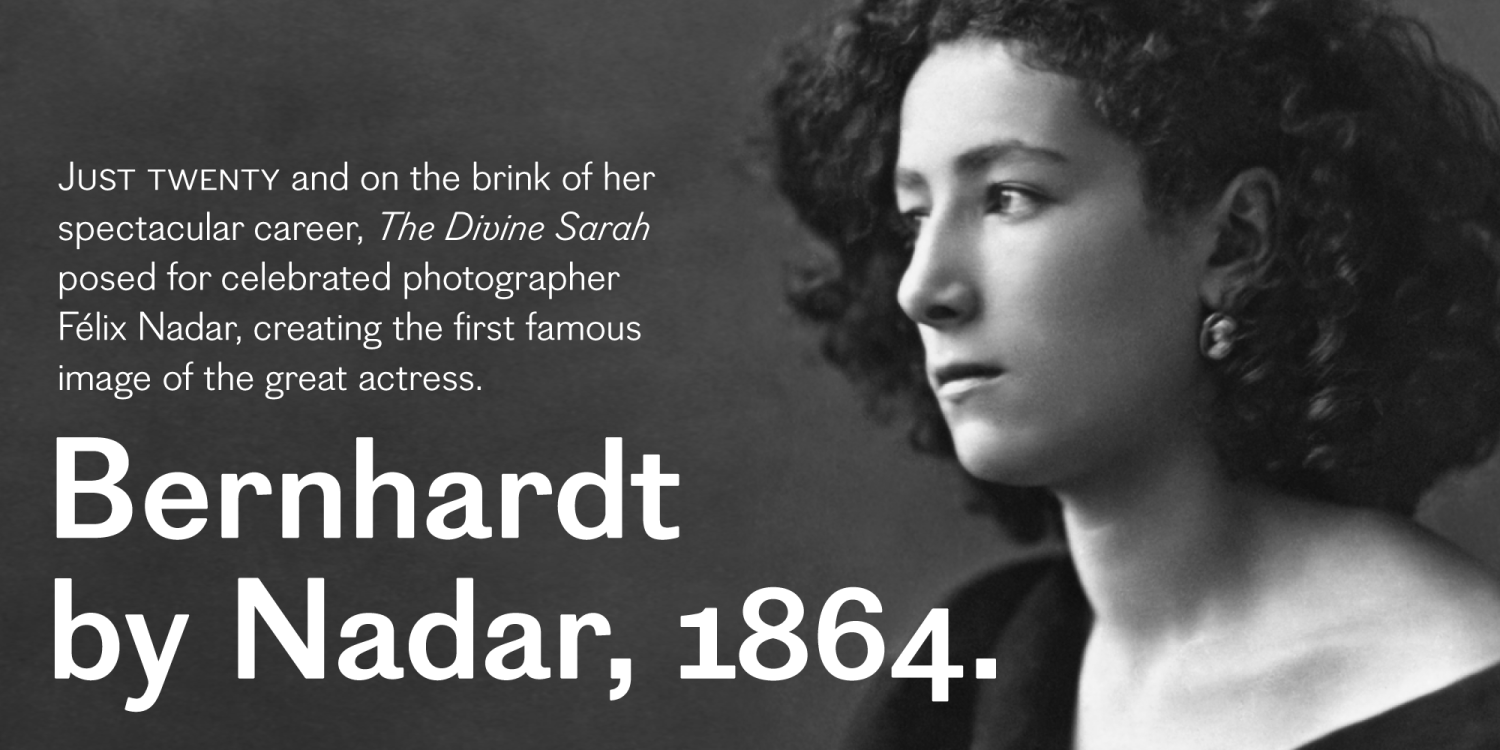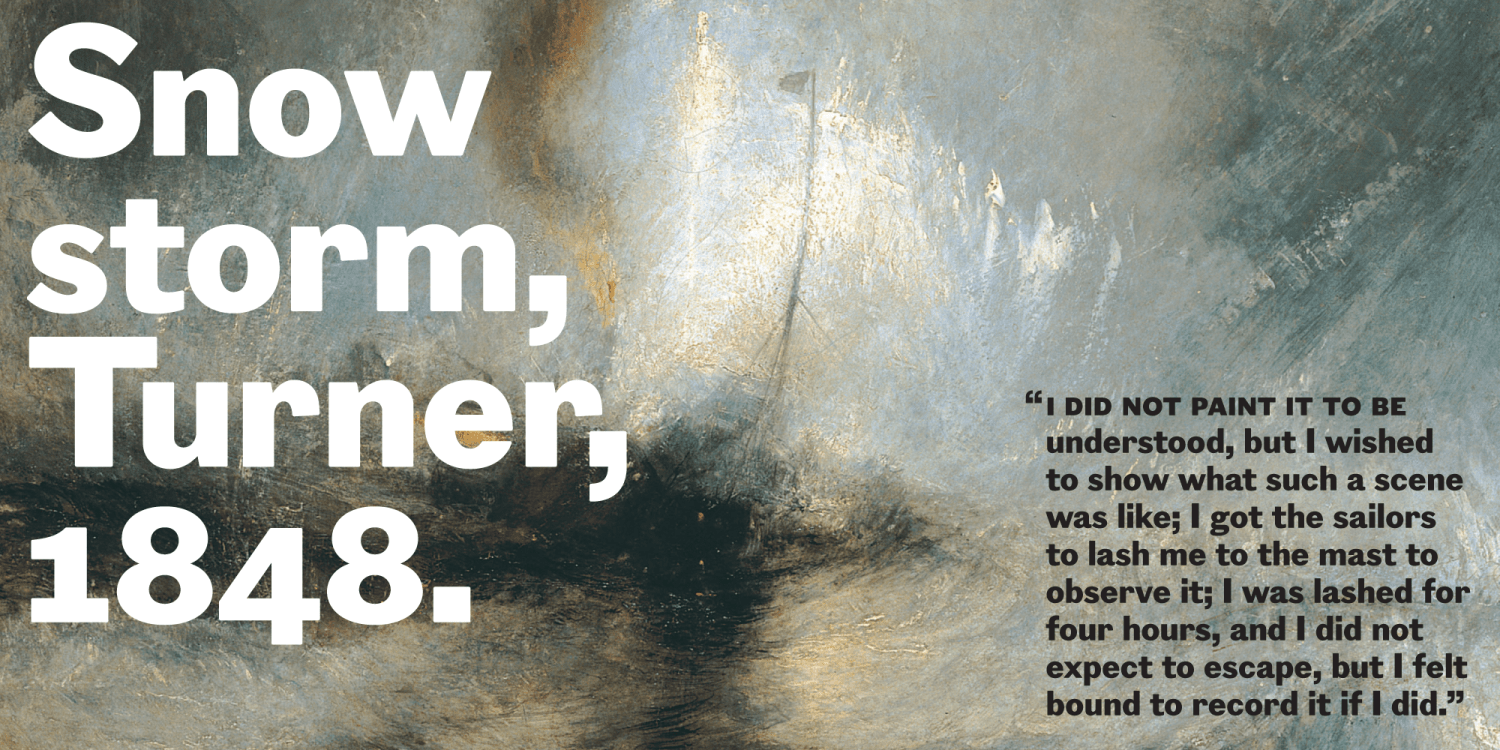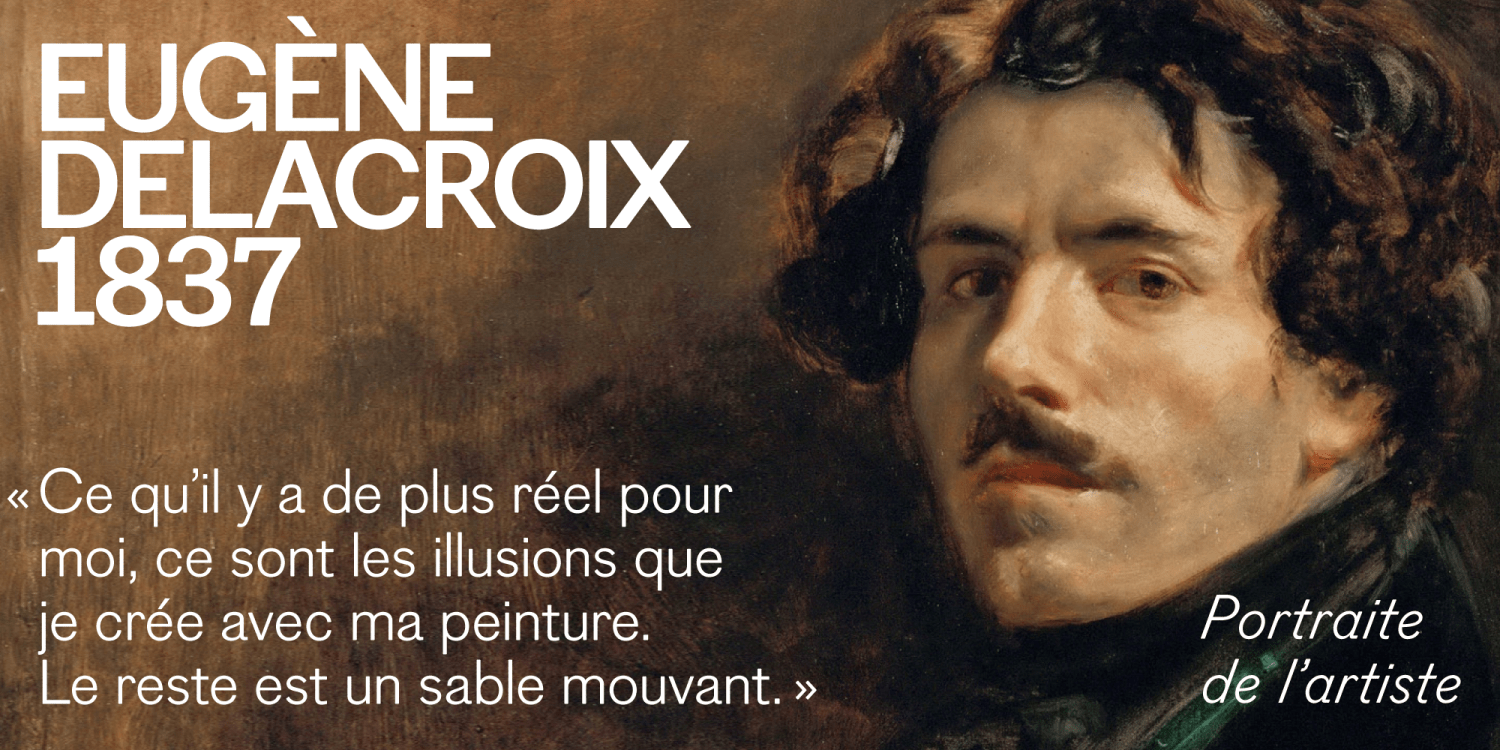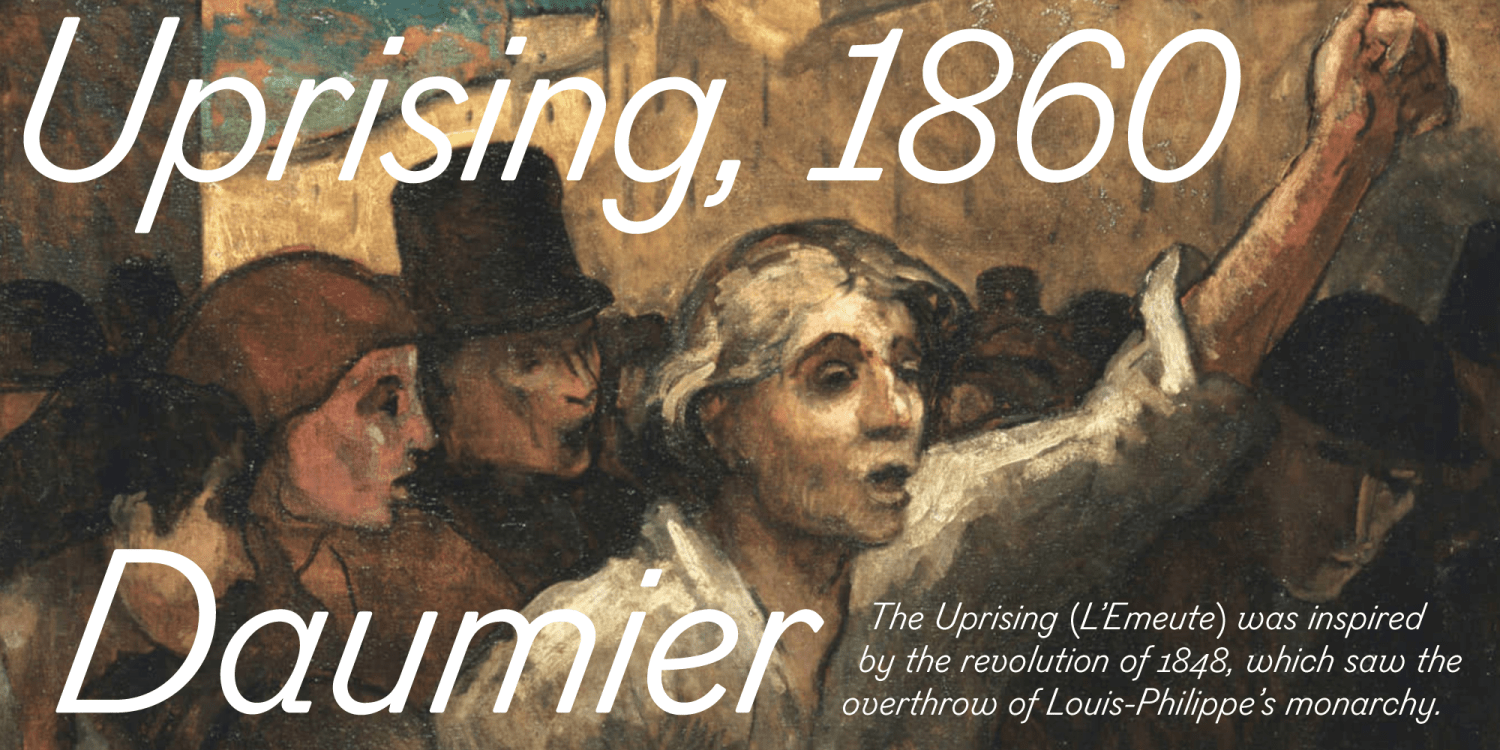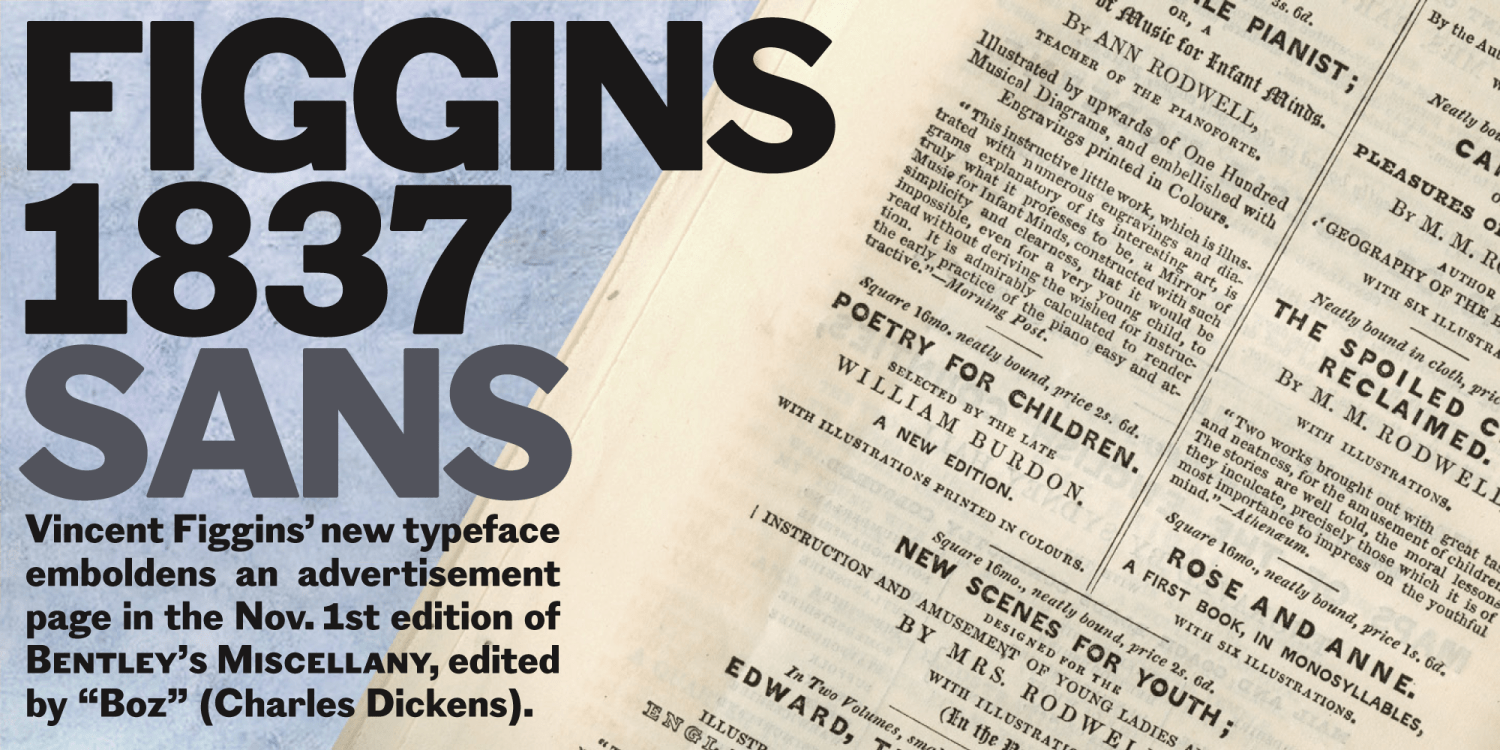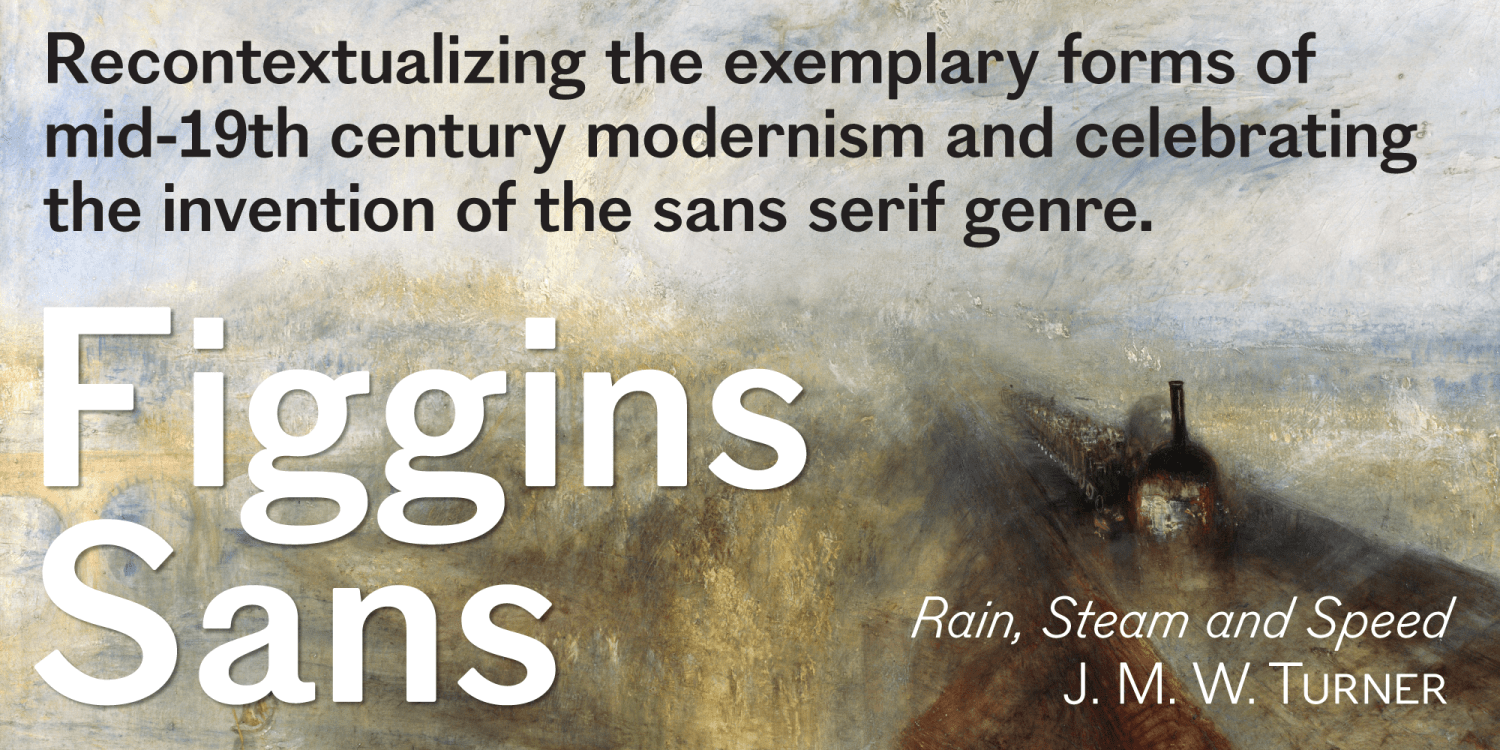
Figgins Sans
About Figgins Sans
The first sans serif types were made in London in the early 19th century. They were severely modern, all caps and bold. The Figgins foundry, inventor of the term sans serif, showed a ?ne example in its specimen of 1836. The extra bold weight of Figgins…